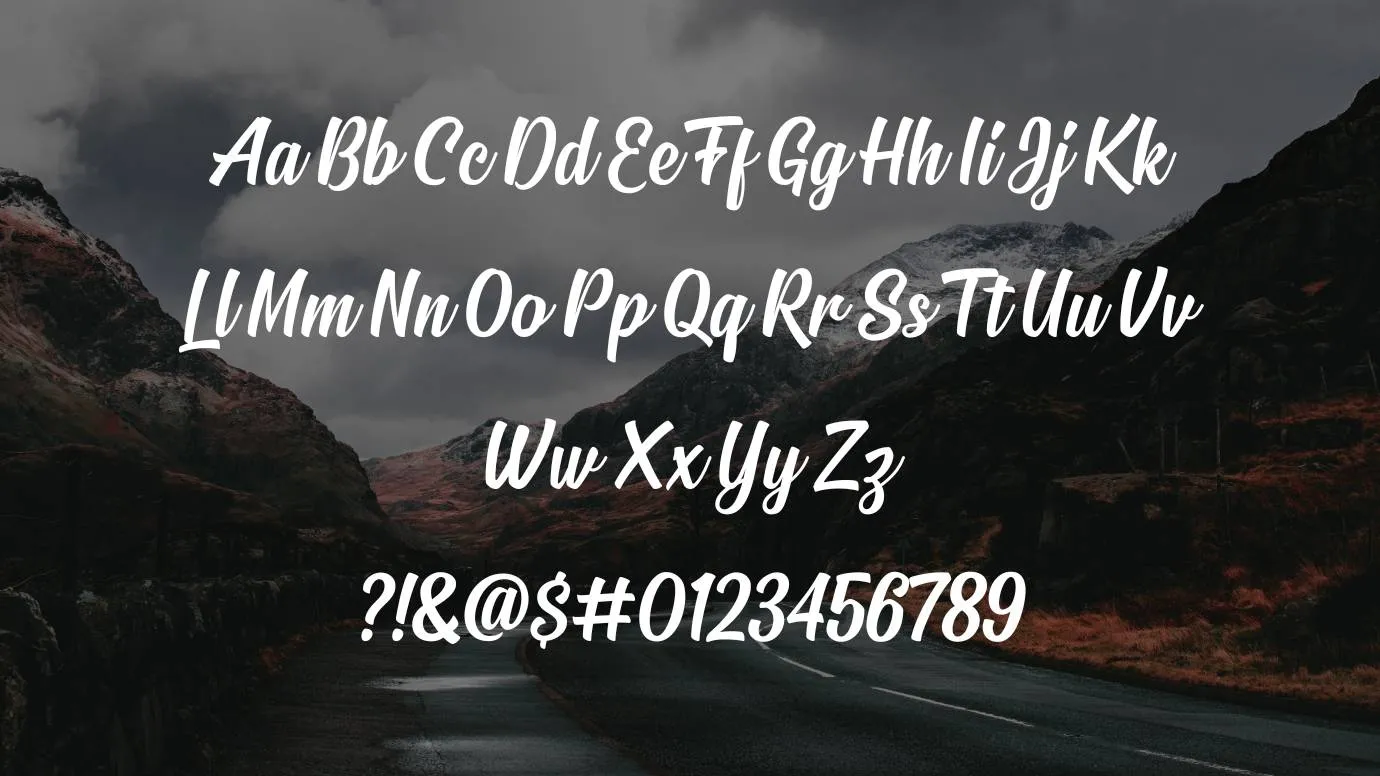
In this post, We present a classic texture that is known under the name Signatra Font which is a script typeface. Twicolabs Fontdation is the real designer of this amazing script typography. This staggering font family has attainable Open Type and True Type features with stylistic alternates.
The Background Story of Signatra Font
Signatra font is a modern font that basically belongs to the category of the script family of fonts. Twicolabs Fontdation works hard for the creation of this texture. The main aim of the designer is to create a natural handwriting look font that is perfect for handicraft designs. A lot of characters that are available in this texture make it impressive among all designers.
Additional Features of Signatra Font
Here, some additional features of this texture are under discussion. This typography comes with bold swashes and thin caps with sharp corners characters. Due to its sharp corner, most manufacturers use this texture for their designs.
This font family has more than 58 characters including uppercase, numbers, and lowercase letters. It comes with fantastic glyphs and alternates that make your design more attractive. This playful and clean look font has unique features. The modern and attractive look of this font is suitable for casual text designing purposes.
Efficient Uses of Signatra Font
Due to a lot of classic and advanced features, the popularity of this typeface is increasing day after day. This texture is effective for making social media profiles, animated cover designs, ebook covers, and emblems design purposes. This awesome typography is good for creating greeting cards, title designs, graphic card designs, hand-drawn headings, and code design purposes.
This cohesive look font is suitable for use in special types of signatures, different bold script designs, classic letterhead designs, and multiple invoices design purposes. You can utilize this eye-catching feature’s font for making company logos, various paragraph designs, editing videos, template designs, and thumbnail design purposes.
This typography is also good for use in MS Word and Excel for different documentation and related design purposes. This font is suitable for use in more unique design projects by making pairing it with sarah script font which has modern ligatures and you can use for fascinating text design purposes.
What kind of font is Signatra Font?
The type of this amazing and famous font is a script and it was finally designed for the first time by Twicolabs Fontdation.
Can I use Signatra Font for logo design?
Yes, the Signatra typeface is effective for use in different types of logo designing as well as other related design purposes.